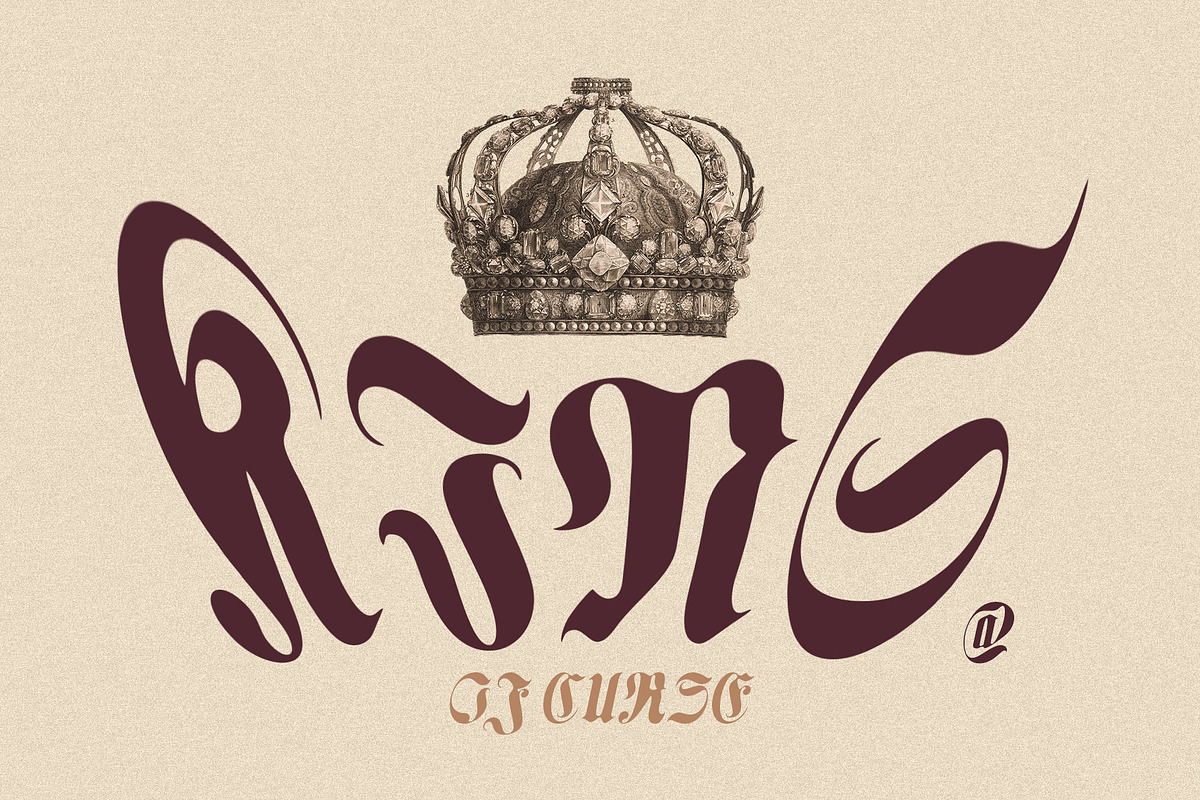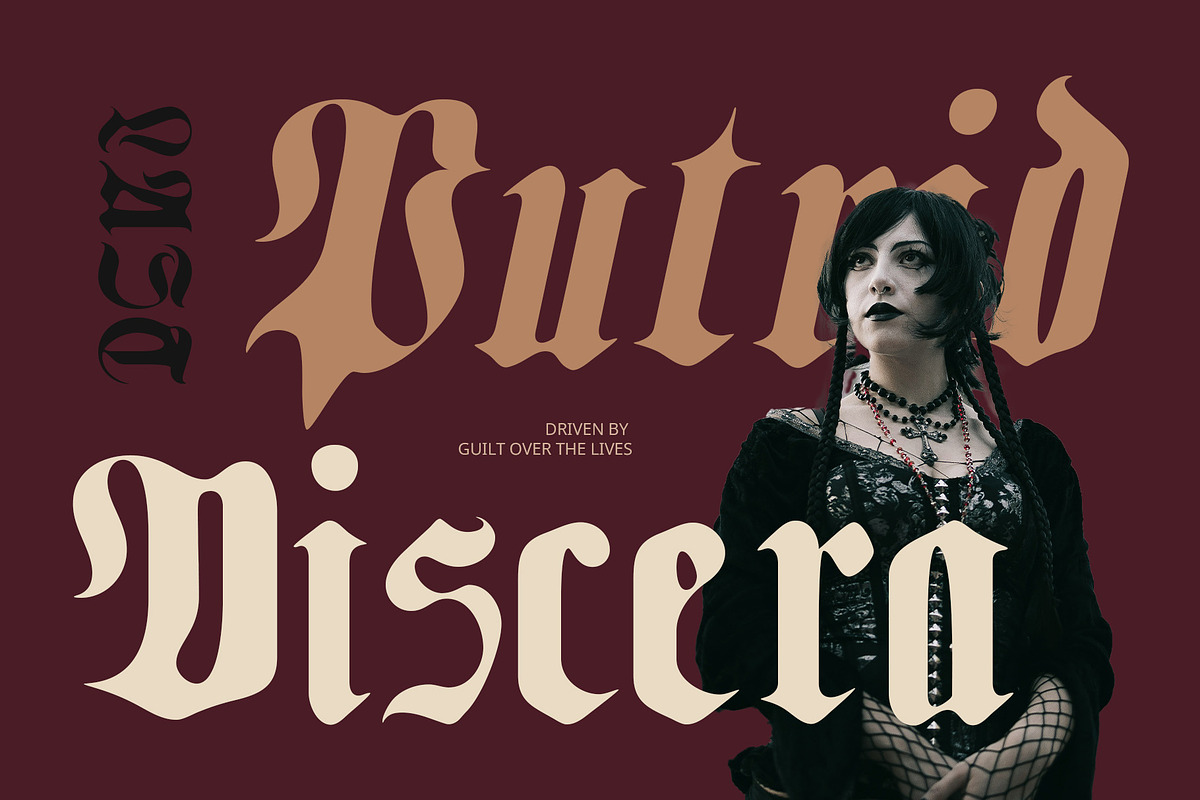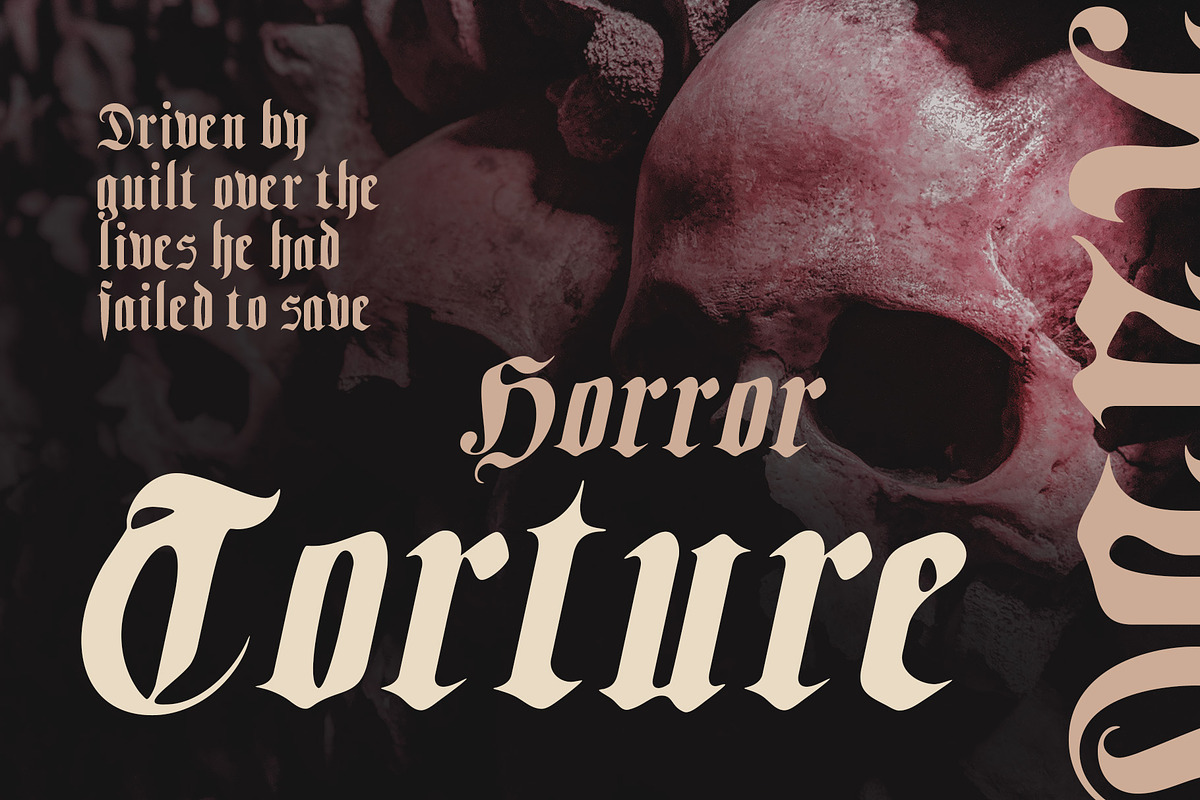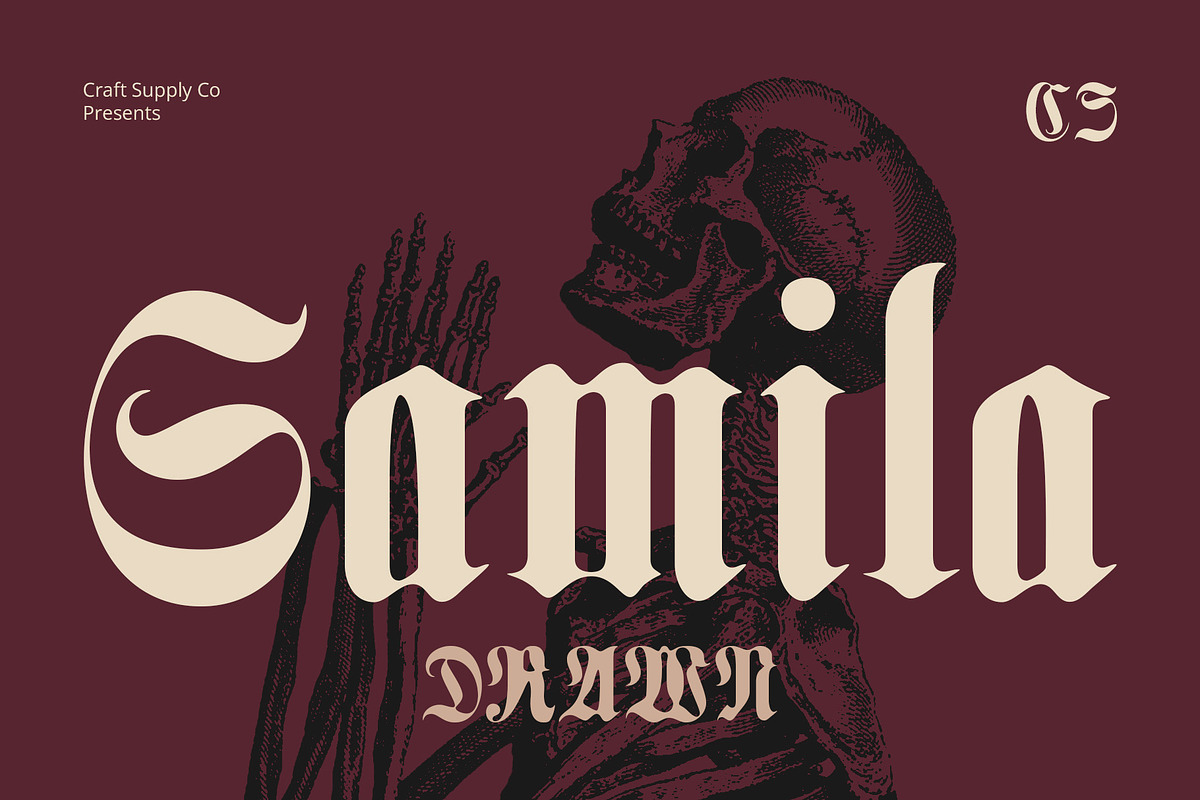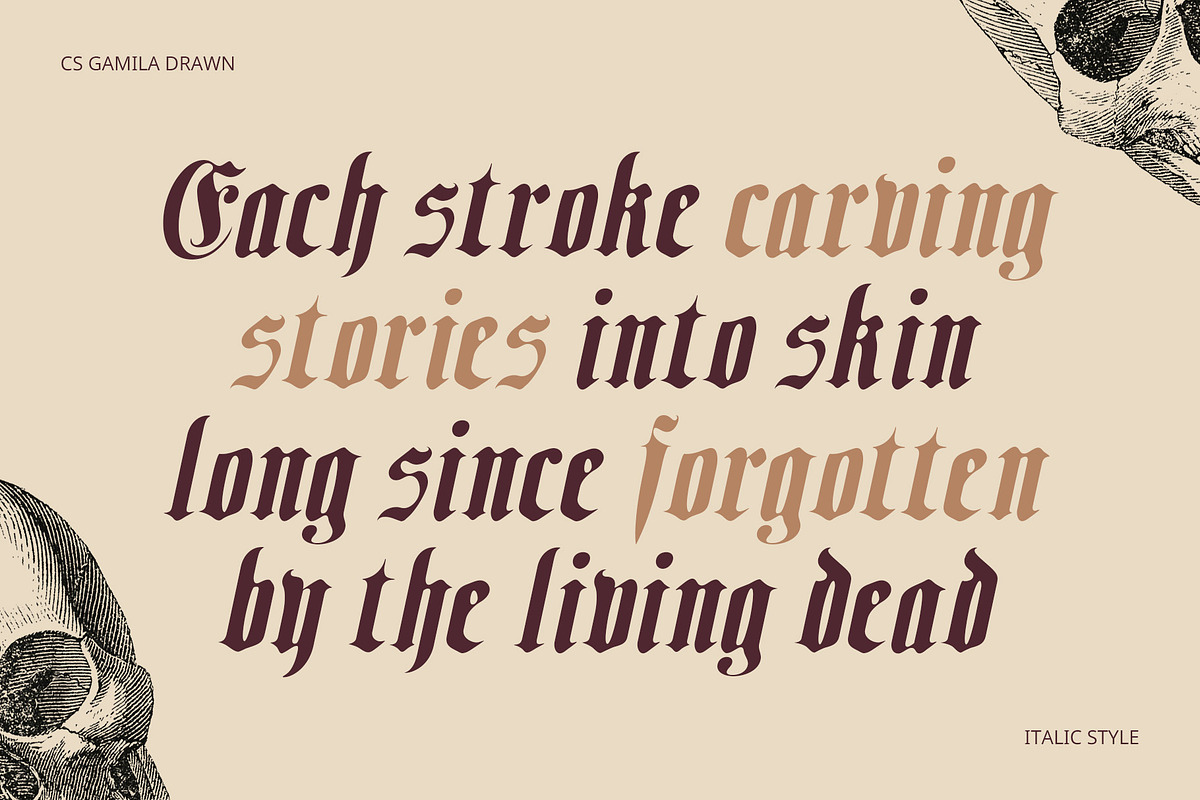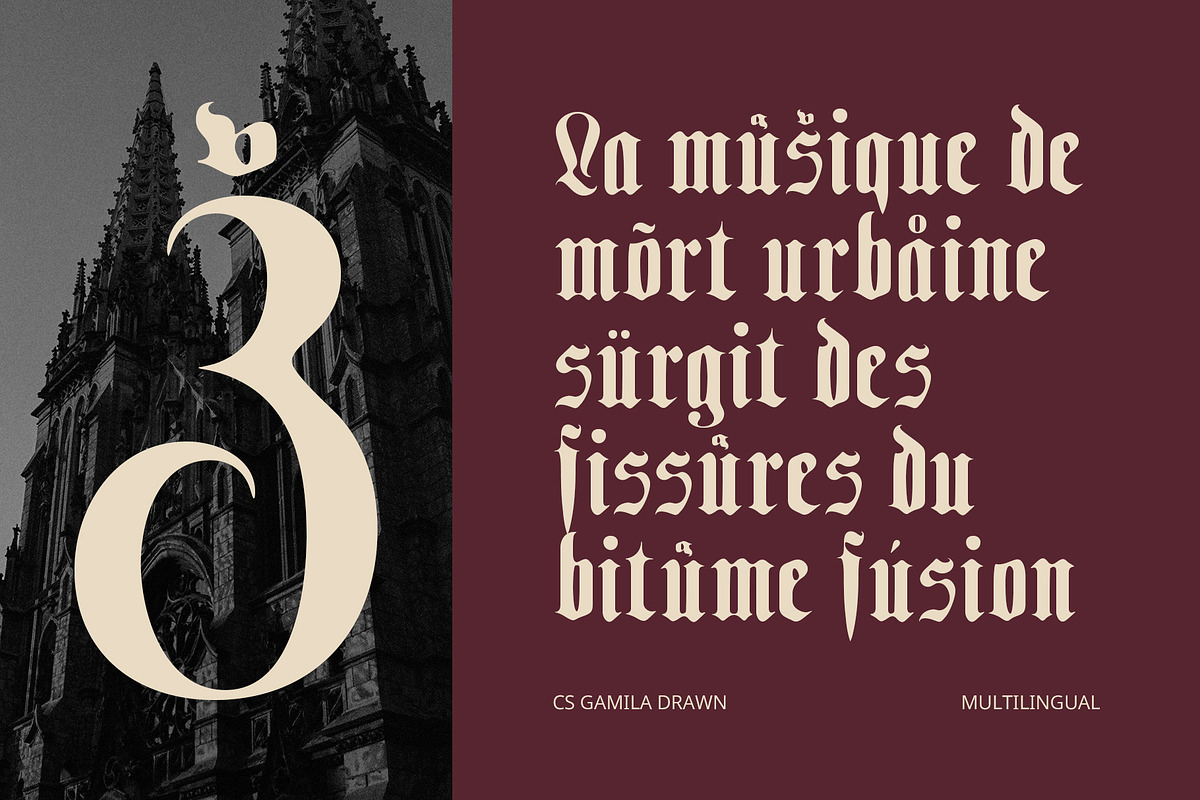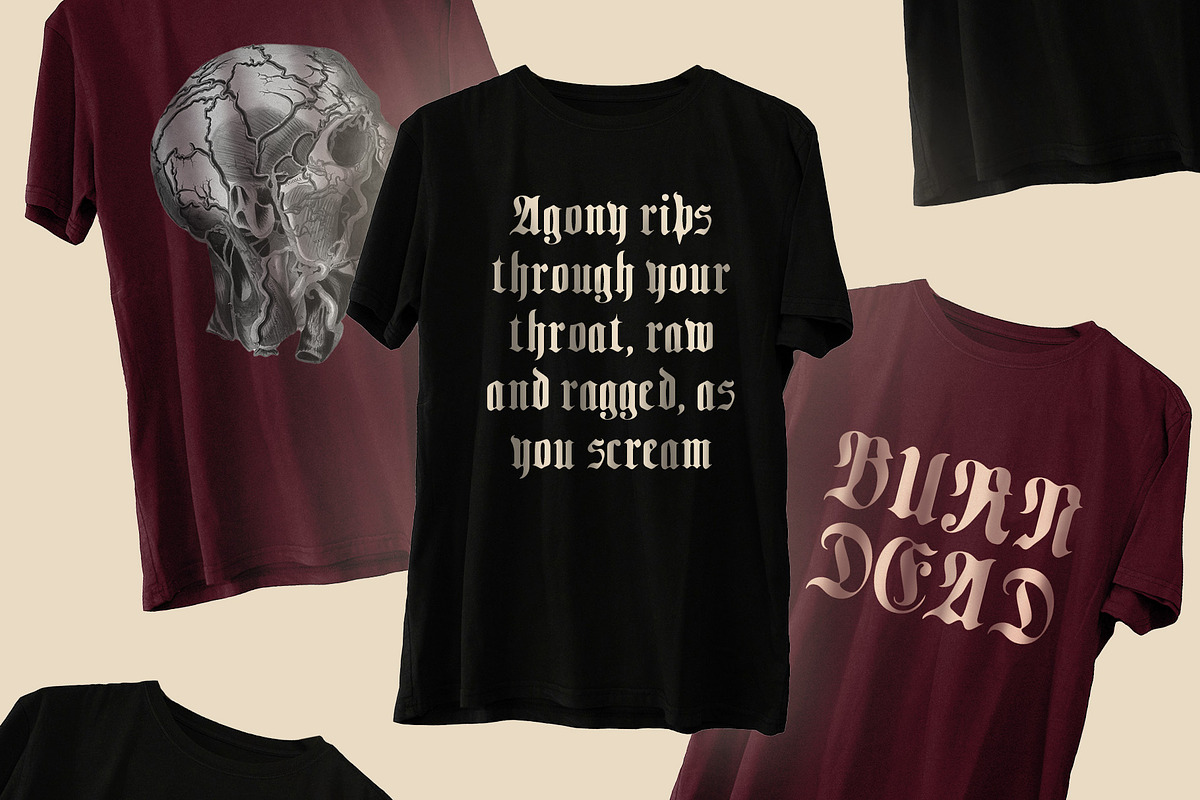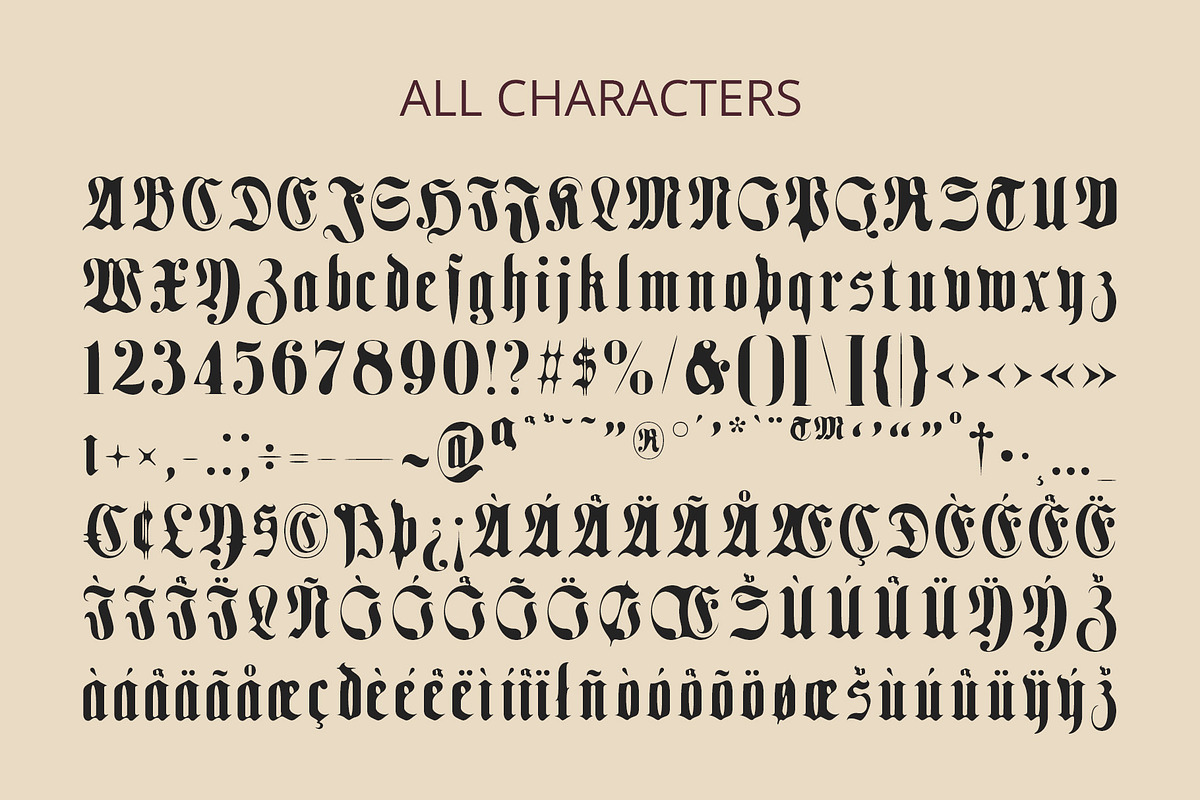
CS Gamila Drawn
CS Gamila Drawn – Bold Gothic Expression with an Artistic Edge
Modern Blackletter with Medieval Roots CS Gamila Drawn is a display font that reimagines the traditional blackletter style through a modern lens. Its sharp, ornamental letterforms draw inspiration from medieval script, while its refined structure and clean composition give it a distinctly contemporary flair. The result is a typeface that feels both classic and current—rich in detail yet visually bold and accessible.
Handcrafted Texture for Expressive Depth What sets this rebellious font apart is its distinctive drawn effect. The handcrafted texture brings a rough, raw quality to the font, enhancing its dramatic impact and artistic personality. This organic layer adds dimension and emotion, making the font feel more alive, personal, and creatively untamed.
Bold, Emotional, and Visually Striking With its fusion of gothic intensity and modern aesthetics, this historic font conveys strength, mystery, and depth. It’s designed for projects that seek to express powerful themes, evoke emotion, and create unforgettable visual moments. Its dramatic curves and textured finish command attention and deliver a strong identity.
Perfect for Music, Fashion, and Bold Visual Projects Ideal for music-themed designs, edgy fashion branding, dark posters, or expressive editorial layouts, this dramatic font offers a compelling choice for creatives who want their typography to feel intense, stylish, and full of character. It’s more than a font—it’s a statement.